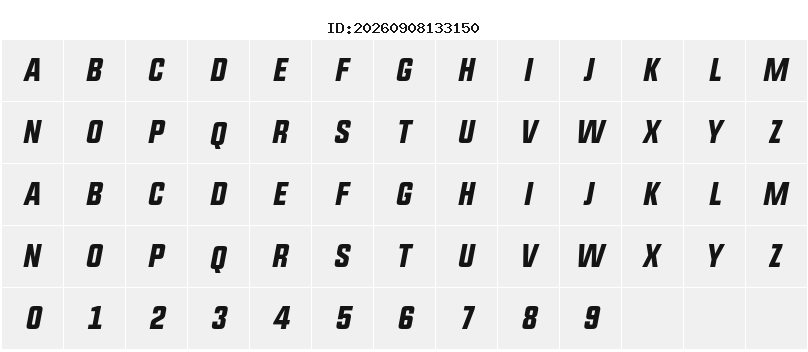
UPBOLTERS Preview
• Font Name: UPBOLTERS
• Full Font Name: UPBOLTERS Italic
• Version: Version 1.00 January 8, 2015, initial release
• Designer: Situjuh Nazara
About UPBOLTERS.otf
UPBOLTERS.otf is a modern, elegant sans-serif font designed for ultimate readability and visual harmony. Perfect for branding, headlines, web design, and print materials.